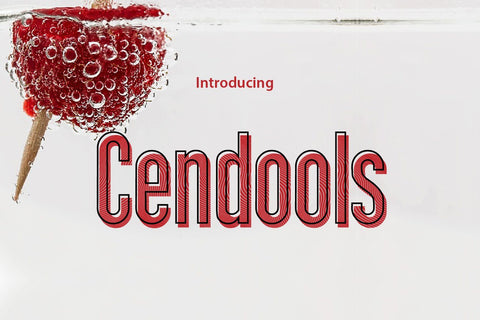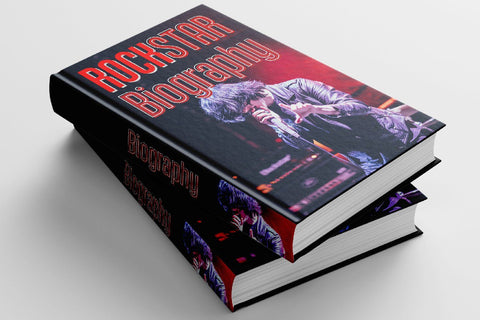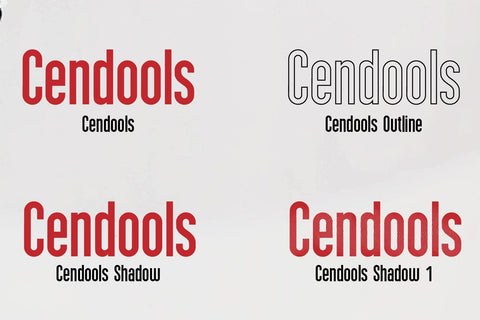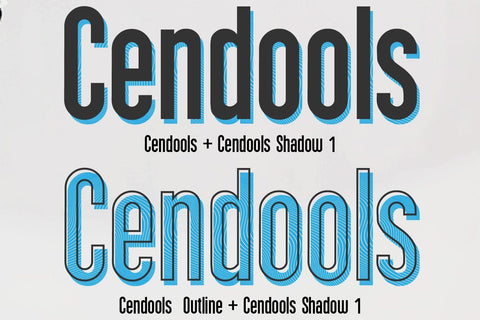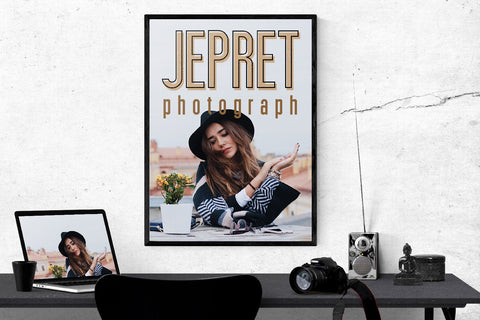
Cendools layered font
Cendools is a simple Shadow font, comes with Solid, Outline Version and alternate Shadow . I keep this font looks elegant, readable, stylish, and catchy. You can use this font for watermark on photography, signature or signature logo design, quotes, album cover, business card, and many other design project.